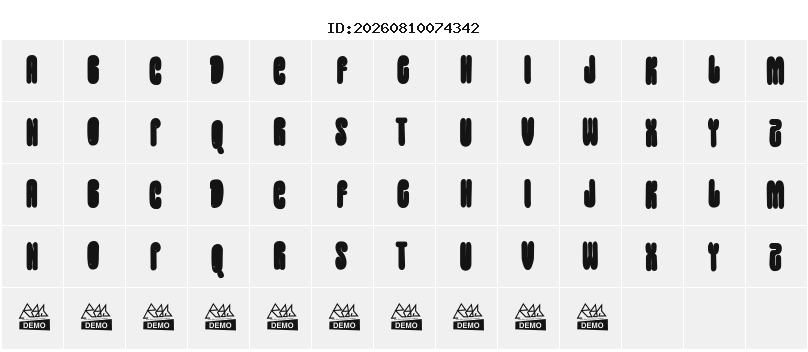
• Font Name: PLOP
About PLOP.ttf
PLOP.ttf is a modern, elegant sans-serif font designed for ultimate readability and visual harmony. Perfect for branding, headlines, web design, and print materials.